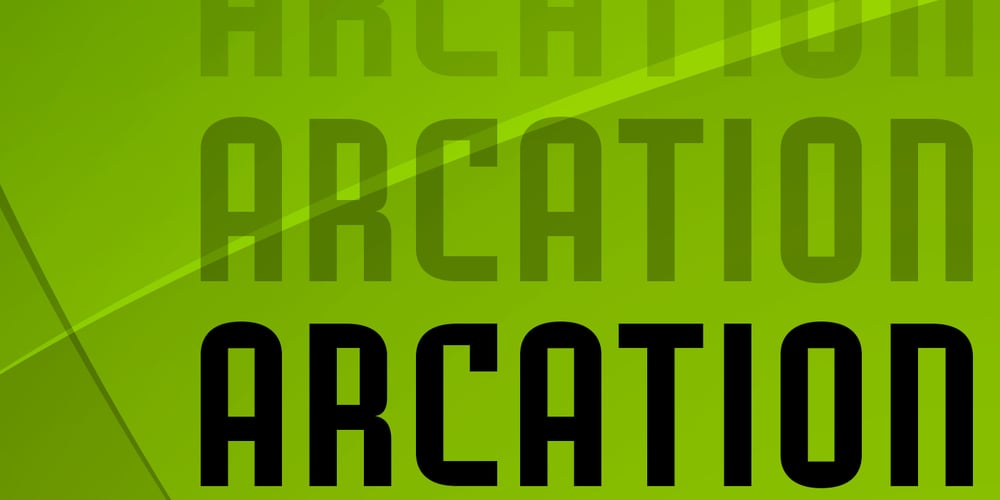
Arcation Font Family was designed by Alec Julien and published by Haiku Monkey. Arcation contains 2 styles and family package options. Arcation is a high-tech display face that excels at large sizes but retains readability in smaller sizes as well. Its sturdy geometry and slightly condensed stance creates a cohesive set of glyphs with an enduring voice. Use liberally for logos, signs, book covers, or any other application where a strong, original font is called for.